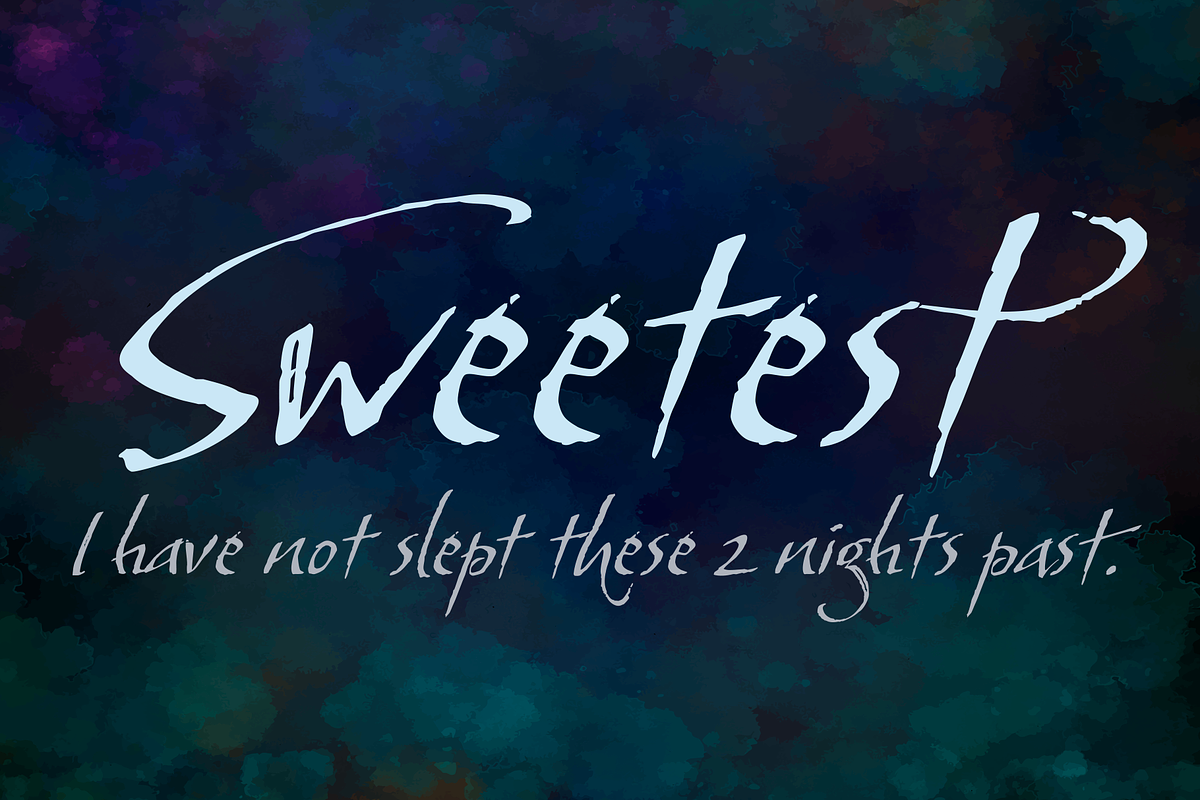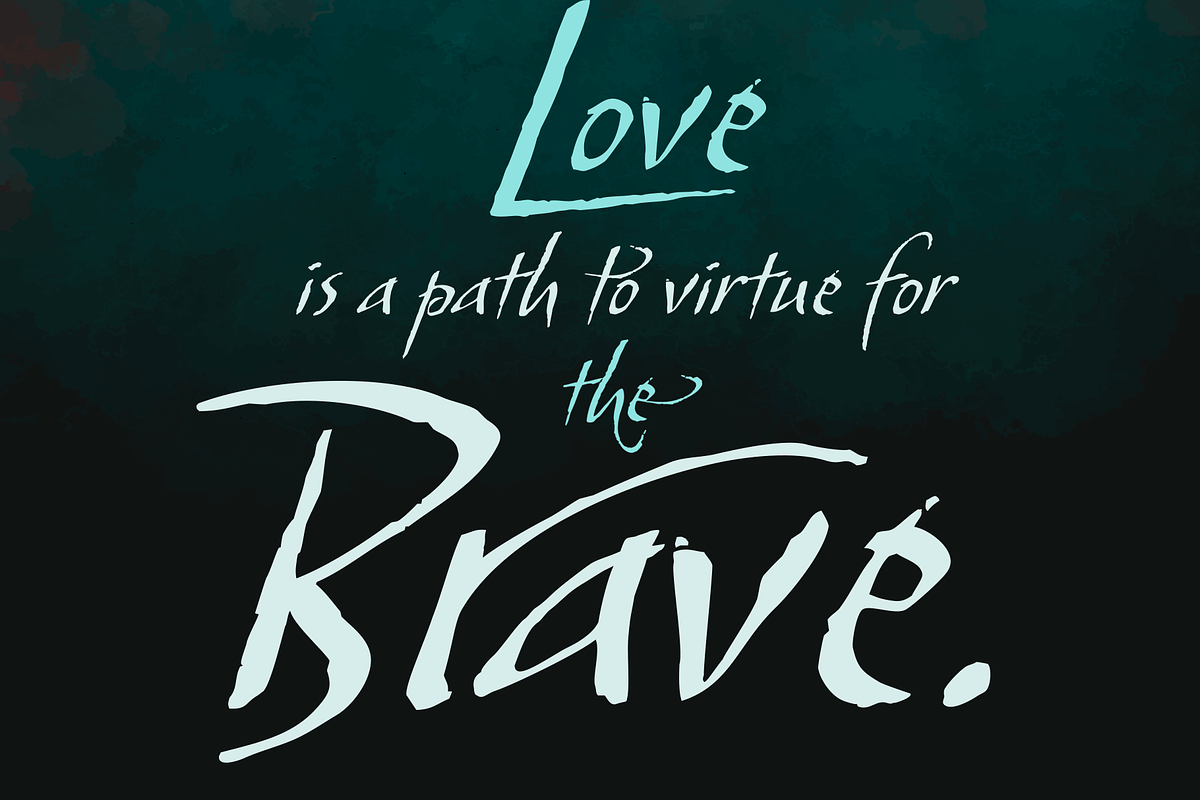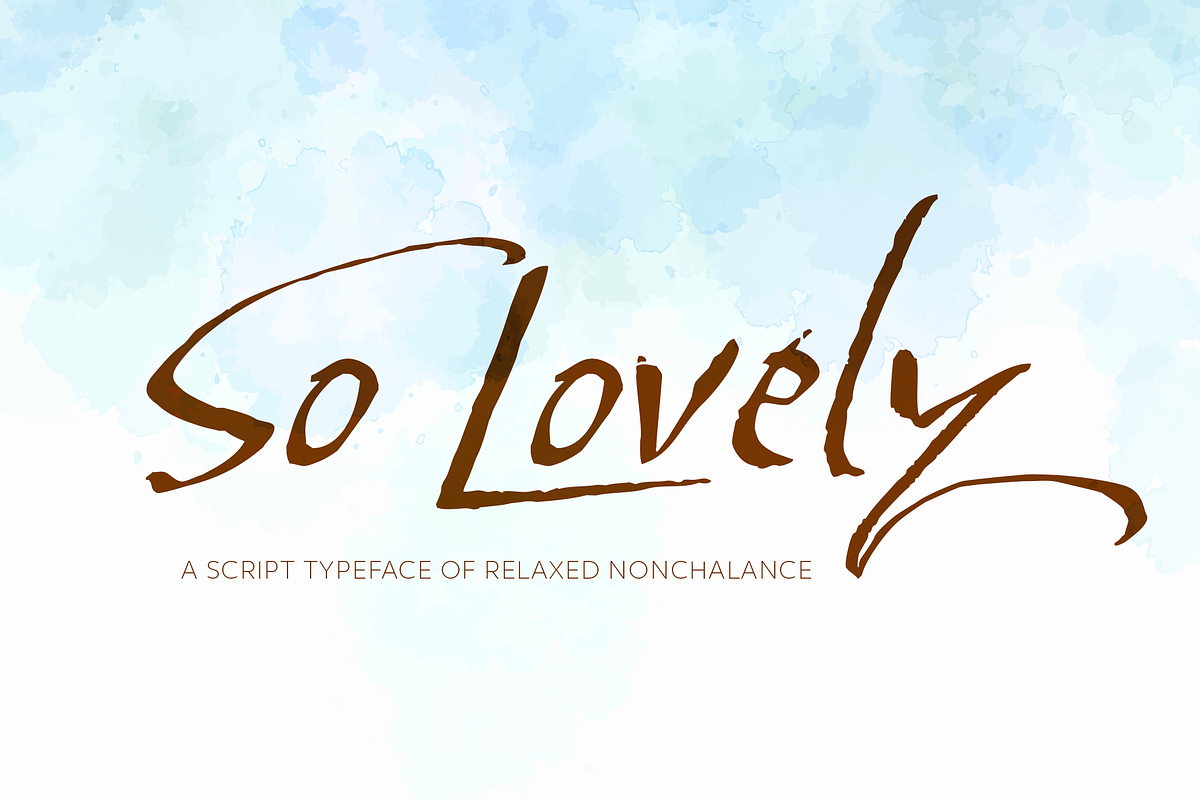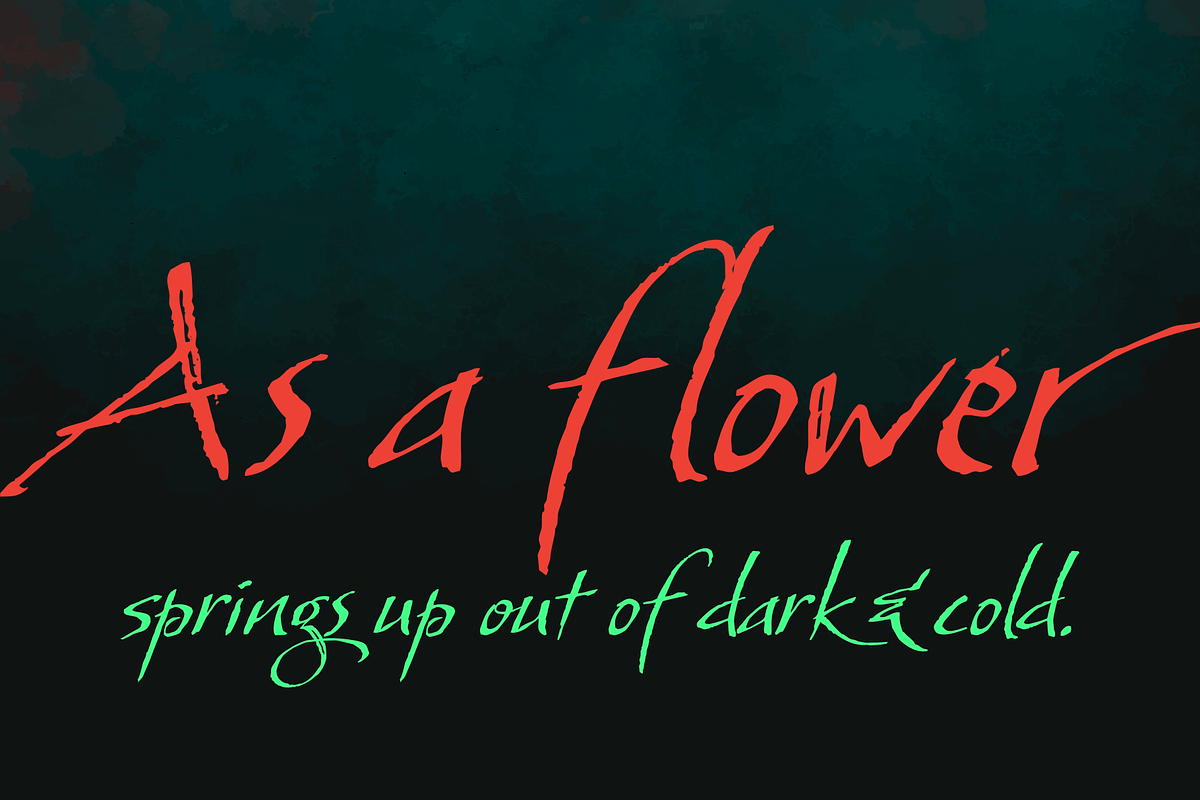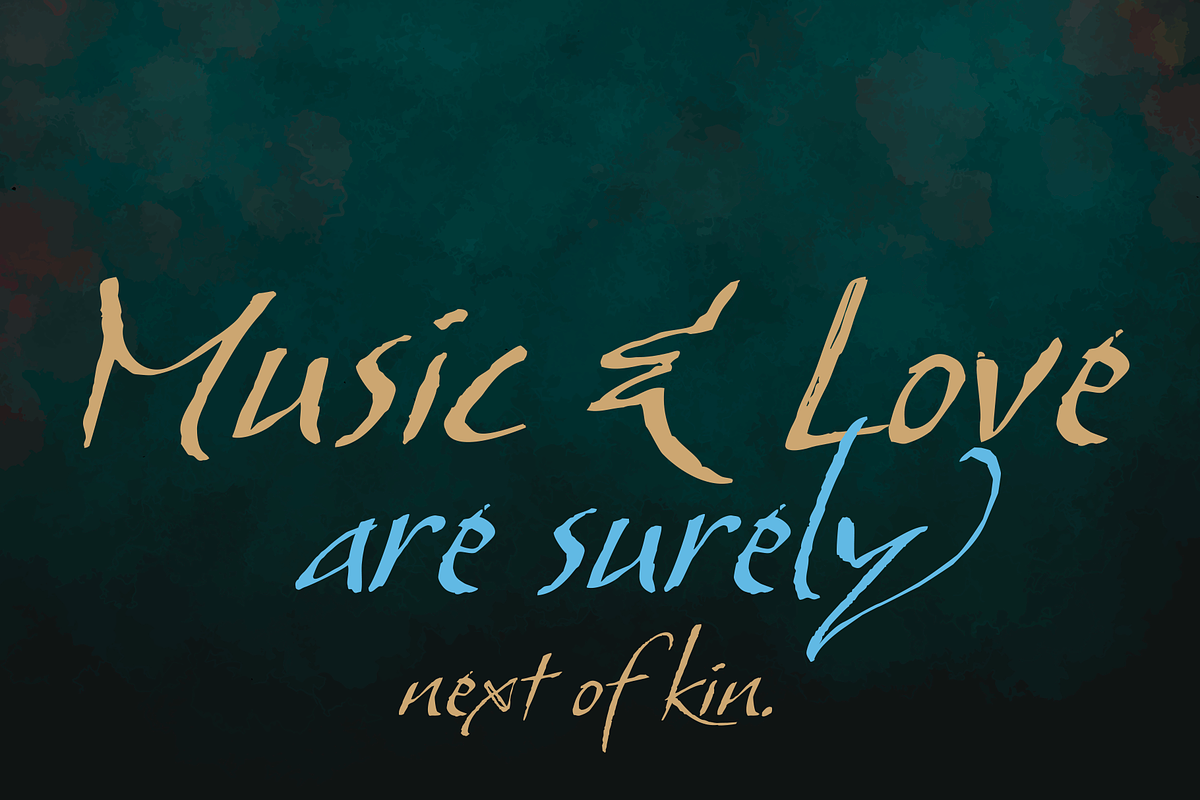
So Lovely Script Typeface
Sometimes, you just get an idea that needs to texture, needs a place in the world. Picking up a pen, the elements slowly emerged… like many of my Relaxed Script typefaces.
As part of Neil Summerour &Positype's Relaxed Script Font Series, this typeface features a number of OpenType features that includes a number of Stylistic, Swash, and even Titling alternates. These typefaces are expertly craft and perfect for any use where you are wanting a personal or casual touch, including: invitations, weddings, social media, packaging, branding, stationery, and print advertising.
If you have access to applications that offer OpenType support, then I encourage you to make sure Standard Ligatures is on and be sure to explore with alternates have been built into the font so you can personalize your design even more.